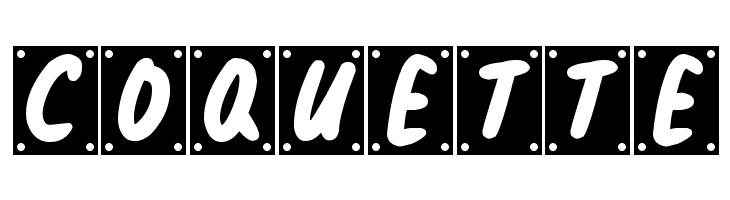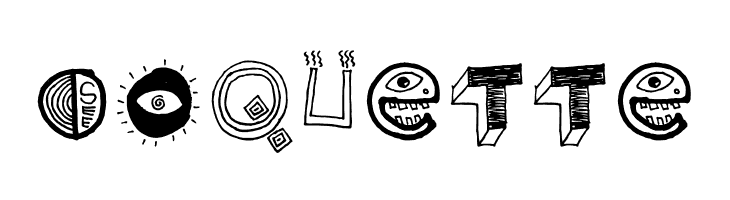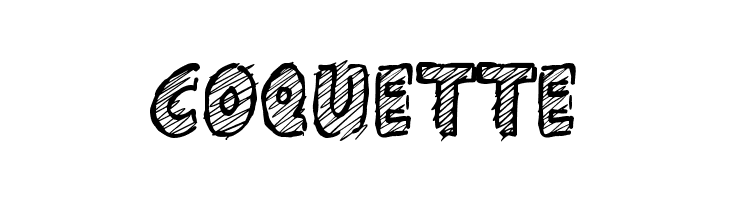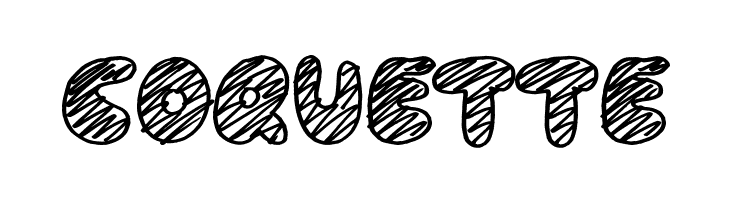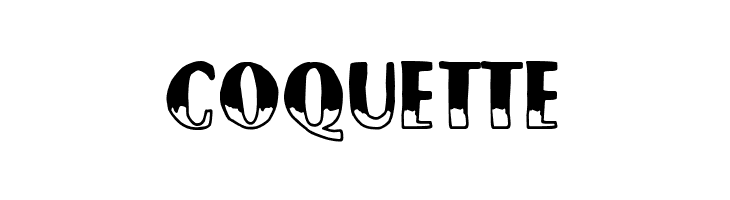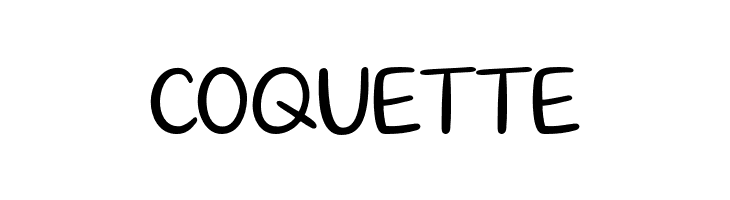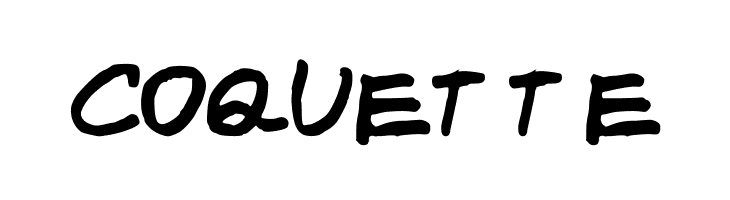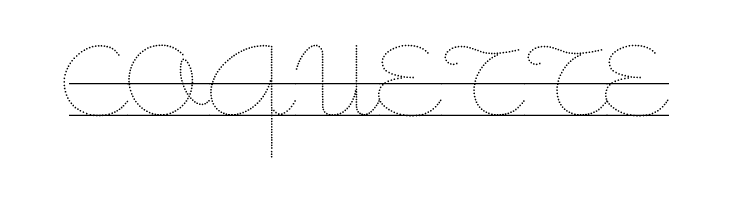
A playful, doodle-inspired font with unique, hand-drawn characters.
A playful, hand-drawn font with a sketchy, textured style.
A bold, hand-drawn font with a playful scribble texture.
A bold, decorative font with an old-school, hand-drawn style.
A playful, handwritten font with rounded, smooth letterforms.
A playful, handwritten script font with a lively and dynamic style.
A bold, playful handwritten font with a casual and youthful style.